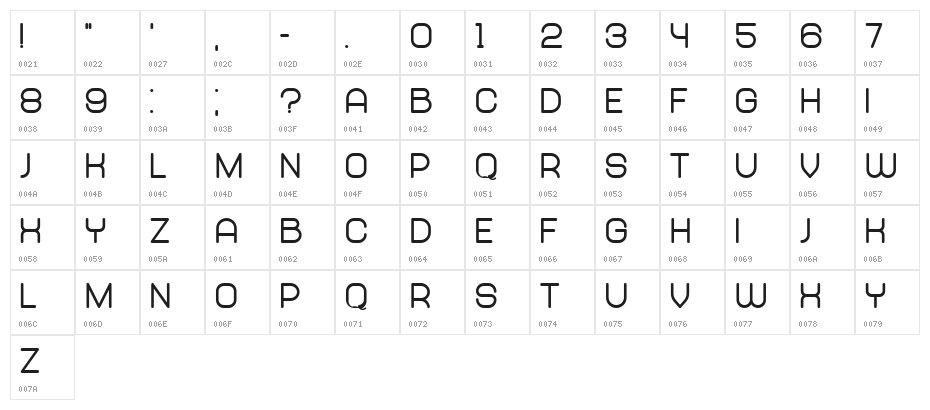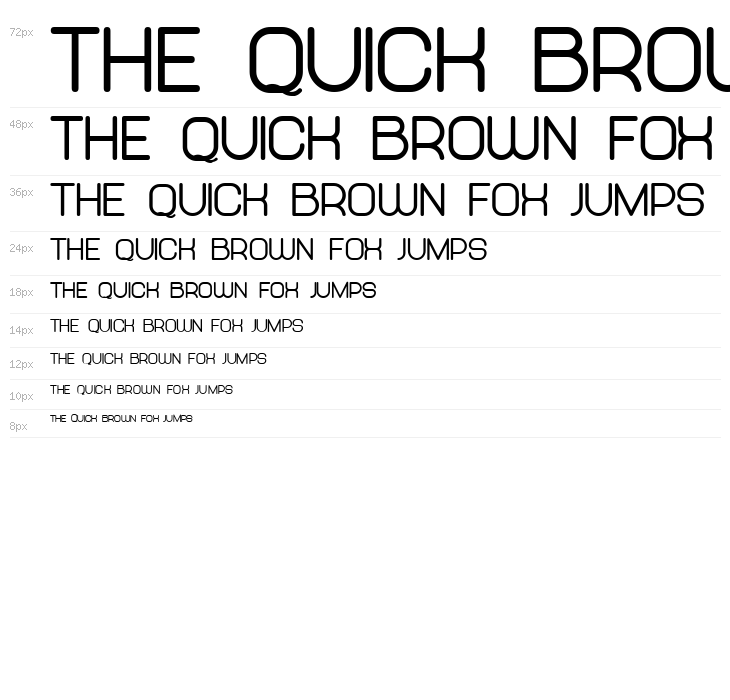
Abandoned Heavy Font
Abandoned Heavy Description
This font features a modern, geometric design with clean lines and rounded edges. The characters are uniform in width, giving it a monospaced appearance, yet they maintain a distinct, open feel. The uppercase and lowercase letters are consistent in style, with a focus on simplicity and readability. The numerals and special characters follow the same design principles, ensuring a cohesive look across all elements. The font's structure is bold and impactful, making it suitable for attention-grabbing headlines or titles. Its minimalistic aesthetic is ideal for contemporary design projects that require a sleek and professional look.
| Proposed Projects | Ideal for branding, advertising, web design, and editorial projects that require a modern and professional appearance. |